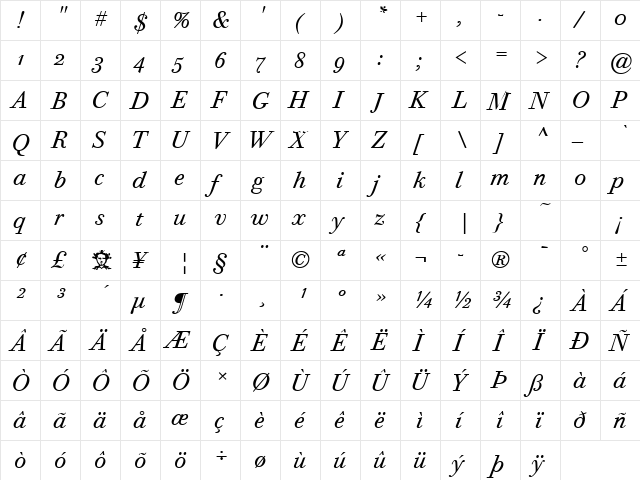
Bodoni Twelve OS ITC TT BookIta
Design Context for Bodoni Twelve OS ITC TT Typeface
Bodoni Twelve OS ITC TT is a composed and adaptable typeface that performs quietly and consistently across a wide range of design contexts.